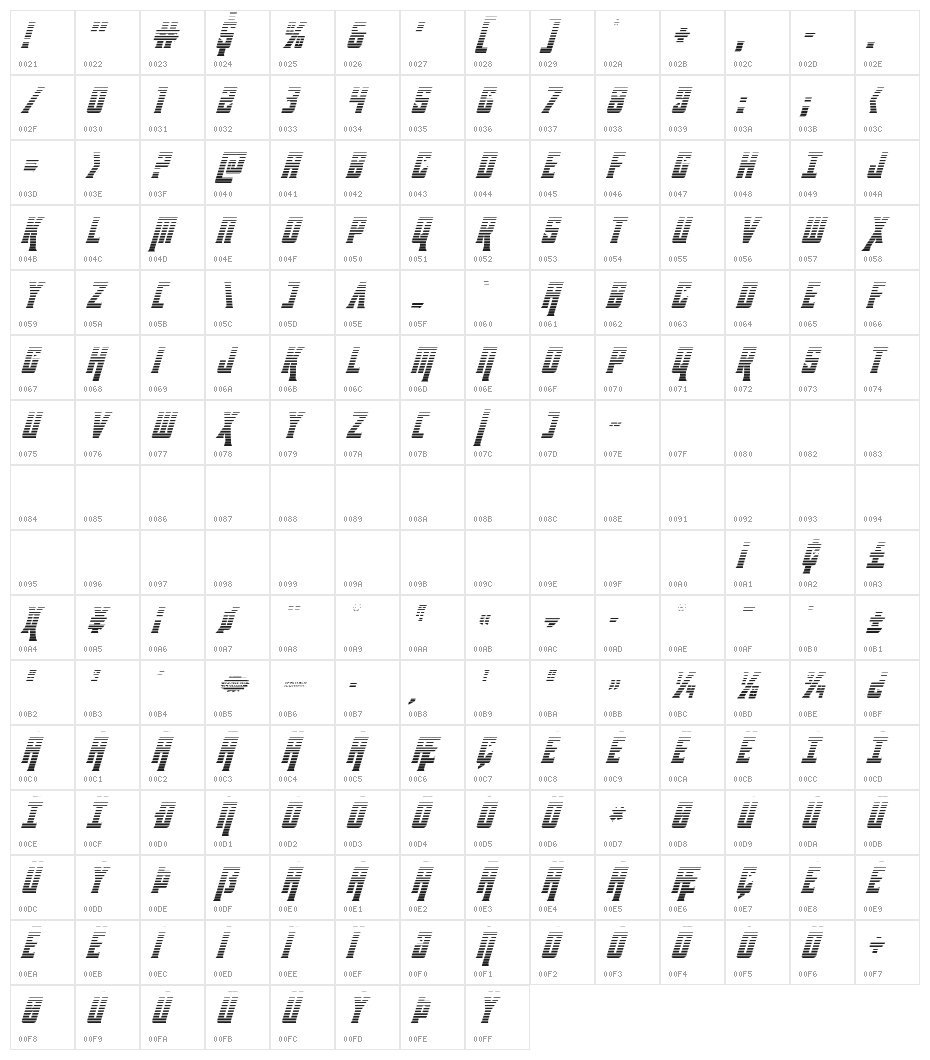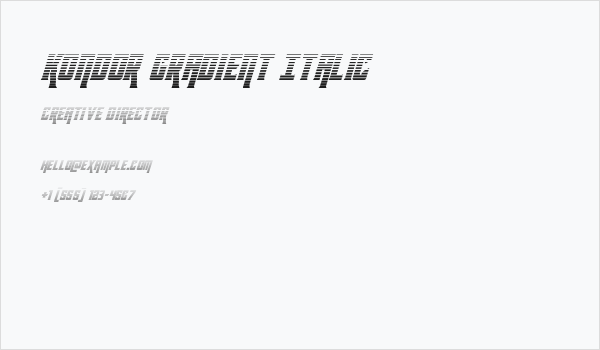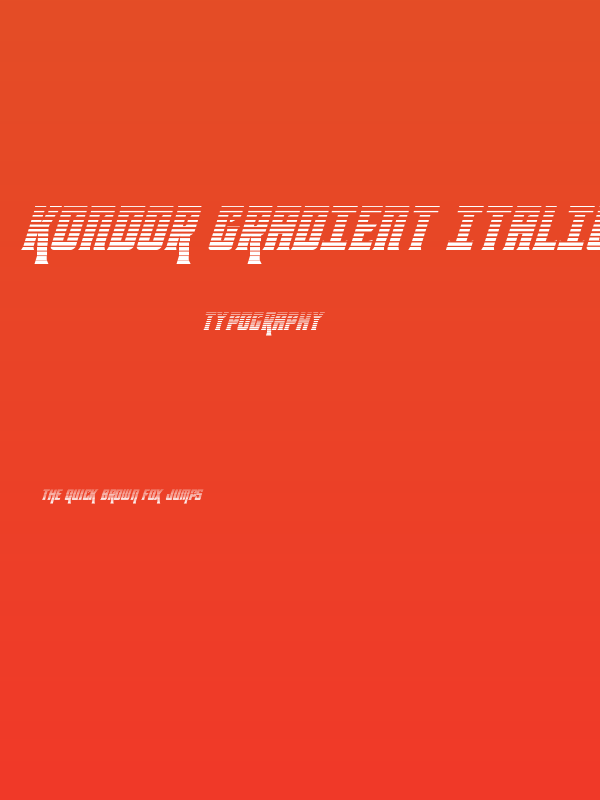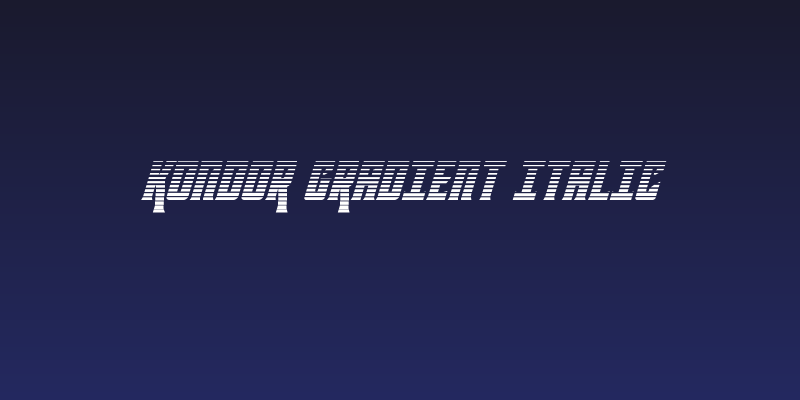
Kondor Gradient Italic Font
Kondor Gradient Italic Description
This font features a dynamic and modern design with a distinct gradient effect that gives the characters a sense of movement and depth. The italicized style enhances its sleek and futuristic appearance, making it ideal for projects that require a bold and eye-catching typeface. The characters are composed of horizontal lines that create a striped pattern, adding a unique texture to the text. This font is particularly suitable for digital media, technology branding, and innovative design projects where a contemporary and striking look is desired.
| Use Case | Headlines, Logos, Digital Media |
| Proposed Projects | Ideal for tech branding, digital media, futuristic designs, and innovative advertising. |